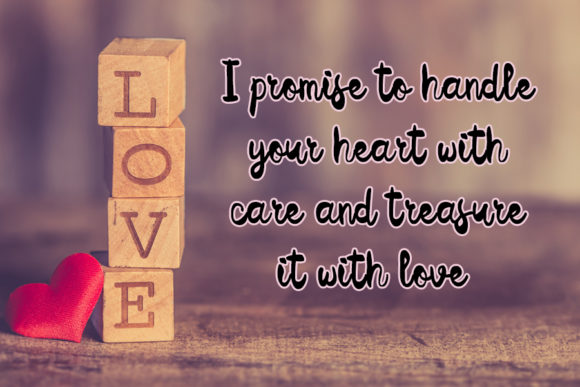
Introduction to Oddading Font
Remember that moment when you finally found the perfect font for your design project? The one that made your creative vision come to life? For designers, it’s a moment of pure joy. And if you’re looking for a font that embodies that feeling, you’re in luck because we’re about to introduce you to the charming Oddading Font.
This delightful handwritten font is more than just a pretty face – it’s a versatile design resource that can elevate your creative project from good to great. With its playful, quirky charm, Oddading Font is perfect for logos, branding, posters, and all sorts of crafty DIY projects. Whether you’re a seasoned pro or just starting out, this high-quality font is sure to become your new go-to design companion.
Key Features of Oddading Font
- High-quality, unique design for creative projects, ideal for designers and artists looking for a distinctive font.
- Unique characteristics include a quirky, hand-drawn feel and a wide range of stylistic options, making it perfect for adding a personal touch to your design projects.
Honest Review: Oddading Font
What works well: ✨ The Oddading Font offers a unique aesthetic that’s perfect for creative projects requiring a touch of whimsy. Its high-quality design ensures that text stands out without overpowering the overall composition. I appreciate the transparent background option, which allows for seamless integration with other design elements.
- Customizable font sizes and styles
- Supports multiple languages
- High-resolution design for crisp visuals
Limitations: ⚠️ The Oddading Font’s eccentric design might not be suitable for every project. Some users might find it too playful or distracting. Additionally, the font’s irregularities can sometimes make text difficult to read, especially in smaller sizes.
Overall impression: The Oddading Font is a valuable design resource for creative projects where a quirky, high-quality font is needed. While it may have its limitations, I appreciate the unique aesthetic and the transparent background option. It’s a great addition to my design library, and I’m looking forward to experimenting with it further.
Tips for Getting the Most Out of Oddading Font
To get the most out of the Oddading Font, try combining it with a transparent background to create a unique and eye-catching design. You can also experiment with different font sizes and styles to create a custom look.
The Oddading Font is a versatile design resource that can be used in a variety of creative projects, including logos, graphics, and typography for websites, social media, and print materials.